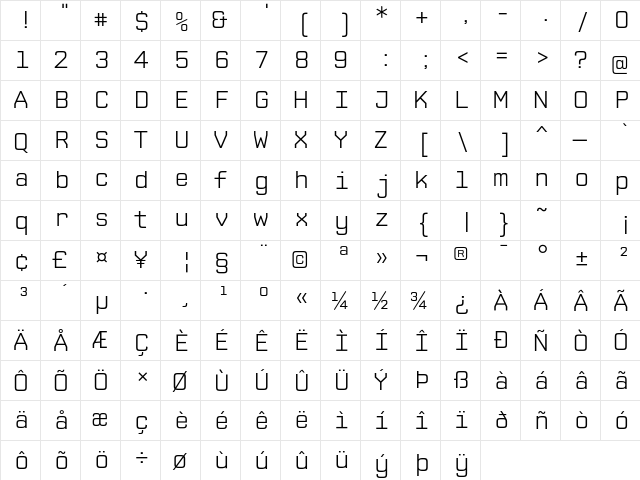
CPMono_v07 Light
| Foundry | Tino Meinert |
| Designer | Tino Meinert |
Design Context for CPMono_v07 Typeface
CPMono_v07 brings the precise, column-aligned rhythm of monospaced typography to designs that value technical clarity and systematic order. Its slender proportions lend an understated elegance to any composition.
Pro Tip: Use CPMono_v07 with slightly increased line-height for extended reading — fixed-width spacing can feel dense in longer passages without extra breathing room.